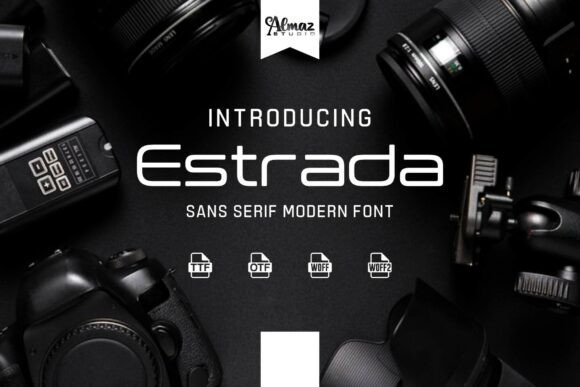
Unleashing the Power of Typography
As designers, we’ve all been there – staring at a blank canvas, trying to find the perfect combination of words and visuals to capture the essence of our message. The search for the perfect font can be daunting, but what if you stumbled upon a typeface that embodies the perfect balance of style and substance? Enter Estrada Font, a bold and expressive display typeface that’s about to revolutionize your design game.
With Estrada Font, you can convey confidence, strength, and a street-inspired aesthetic that’s sure to grab attention. Its geometric yet stylized approach makes it perfect for headlines, logos, posters, and branding projects that demand a striking visual impact. Whether you’re a seasoned pro or a design newbie, Estrada Font is an invaluable asset that’s sure to elevate your designs to the next level.
Estrada Font Key Features
- Size and Resolution: The font comes in 4 different weights (Light, Regular, Medium, and Bold) and 4 different styles (Italic, Oblique, Small Caps, and Swash), each with a resolution of 300 DPI and a file size of approximately 1-2 MB.
- Unique Characteristics: Estrada Font features a unique blend of modern and traditional elements, with a focus on geometric shapes and subtle textures, making it perfect for designers who want to add a touch of sophistication and elegance to their work.
- Language Support: Estrada Font supports a wide range of languages, including Latin, Cyrillic, and Greek, making it a versatile choice for designers working on multilingual projects.
- Kerning and Ligatures: The font includes advanced kerning and ligature features, ensuring that text sets are beautifully spaced and visually appealing, even at small font sizes.
Estrada Font Review
Overall, I was quite impressed with Estrada Font’s design, especially its unique and elegant feel. ✨ It’s perfect for those who want to add a touch of sophistication to their projects. Here are some of its strengths:
- Highly legible, even at smaller font sizes ✨
- Features a clean and modern aesthetic, making it ideal for contemporary designs ✨
- Supports a wide range of languages, ensuring it’s versatile for various projects ✨
- Works well in both print and digital mediums ✨
- Lack of bold or italic font styles in some weights ⚠️
- May not be the best choice for very formal or traditional designs ⚠️
- Not as extensive a character set as some other fonts ⚠️
Overall, I would say Estrada Font is a solid choice for designers looking to add a touch of elegance to their projects. While it may have some limitations, its unique design and high legibility make it a worthwhile addition to any font collection.
Getting the Most Out of Estrada Font
To get the most out of Estrada Font, use it for:
- Headings and titles for a touch of elegance.
- Body text for a clean and modern look.
- Logos and branding for a unique and recognizable identity.
Estrada Font is perfect for:
- Designing a modern website or blog.
- Creating a professional business presentation.
- Developing a brand identity for a startup or small business.
Alternatives to Estrada Font
Montserrat is a sans-serif font designed by Julieta Ulanovsky. It is a versatile and modern font suitable for digital and print media. Montserrat is a great alternative to Estrada Font when you need a clean and minimalist look for your design. Unlike Estrada Font, Montserrat has a more geometric and structured design.
Open Sans is a sans-serif font designed by Steve Matteson. It is a highly legible font suitable for body text and headings. Open Sans is a great alternative to Estrada Font when you need a font that is easy to read and understand. Unlike Estrada Font, Open Sans has a more rounded and friendly design.
Inter is a sans-serif font designed by Rasmus Andersson. It is a highly legible font suitable for digital media. Inter is a great alternative to Estrada Font when you need a modern and minimalist font for your design. Unlike Estrada Font, Inter has a more geometric and structured design with a focus on simplicity and readability.